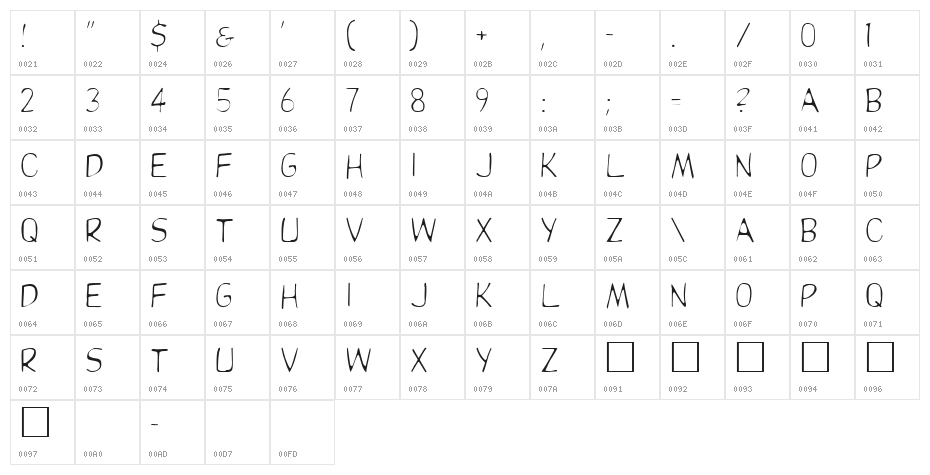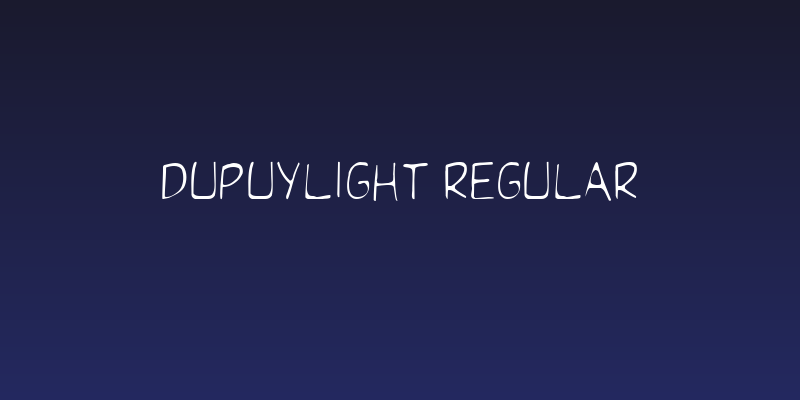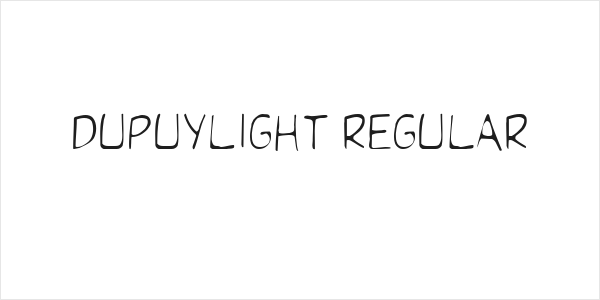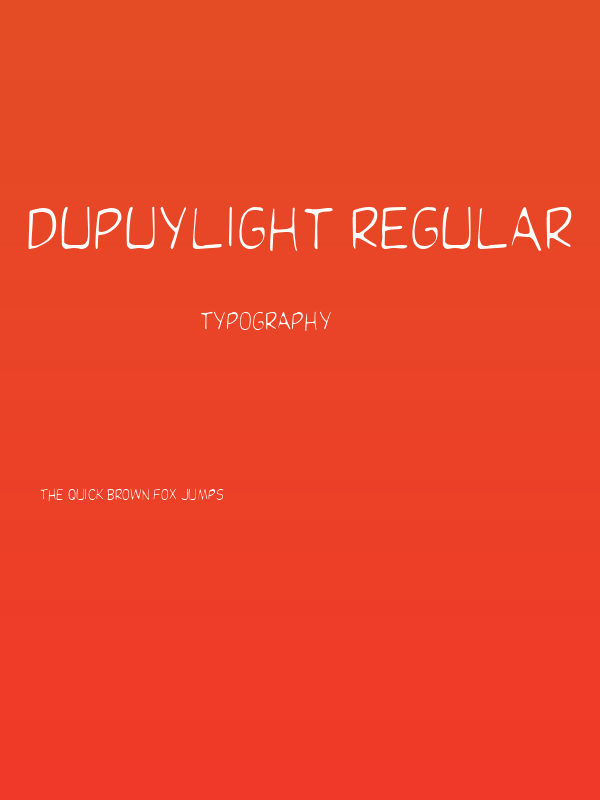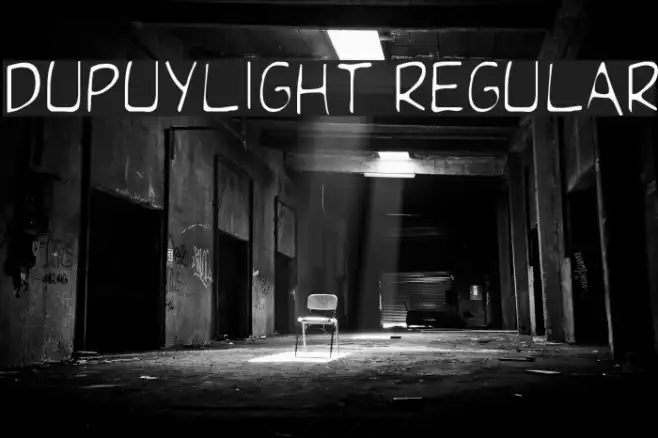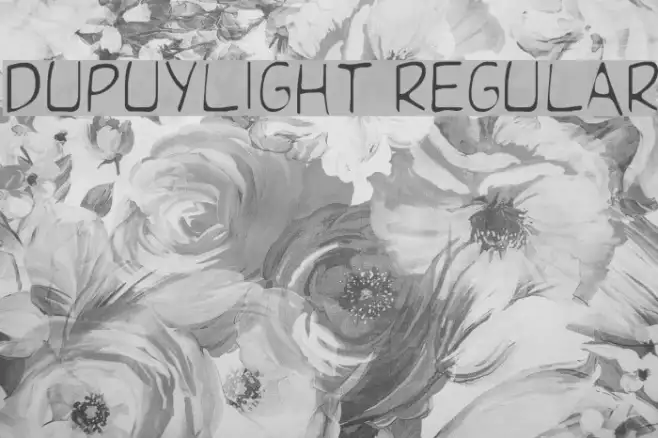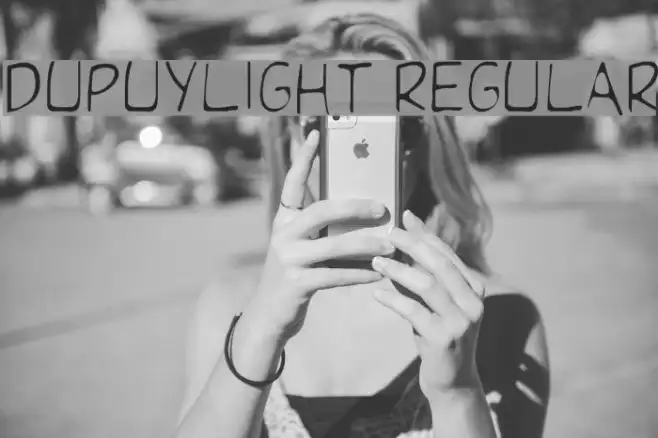
DupuyLight Regular Font
DupuyLight Regular Description
This font features a playful and casual handwritten style, characterized by its irregular strokes and slightly tilted characters. The letters have a whimsical appearance with varying line thickness, giving it a dynamic and lively feel. The uppercase and lowercase letters maintain a consistent style, while the numerals and special characters complement the overall aesthetic. The font's unique personality makes it suitable for creative and informal projects, adding a touch of individuality and charm.
| Proposed Projects | Ideal for greeting cards, children's books, creative posters, and personal branding. |